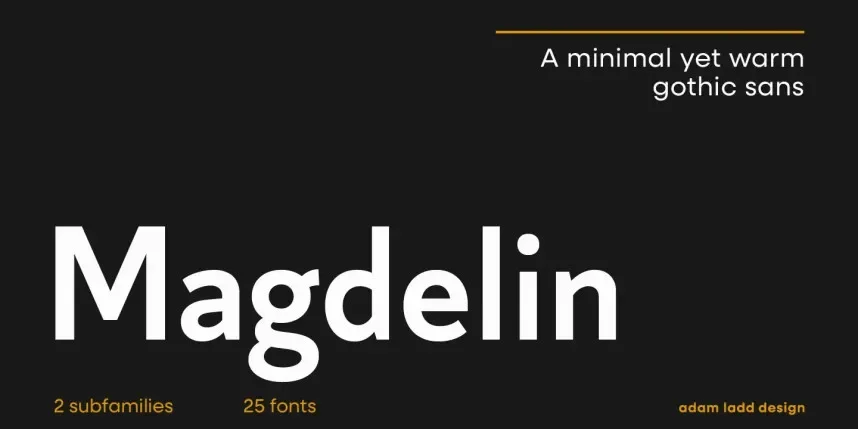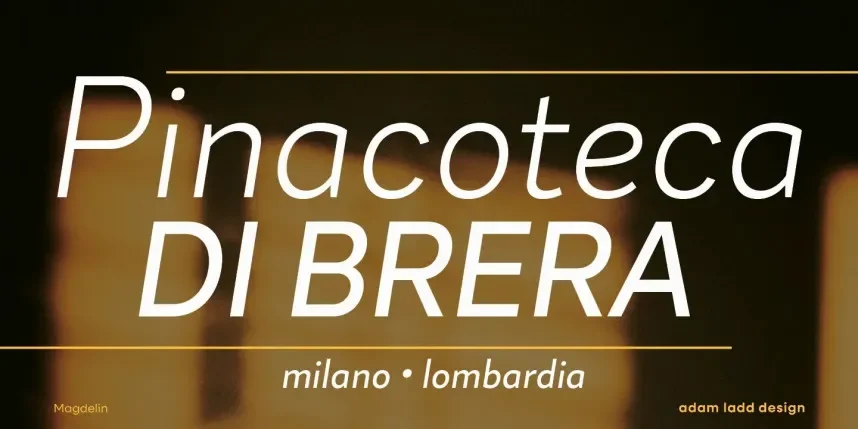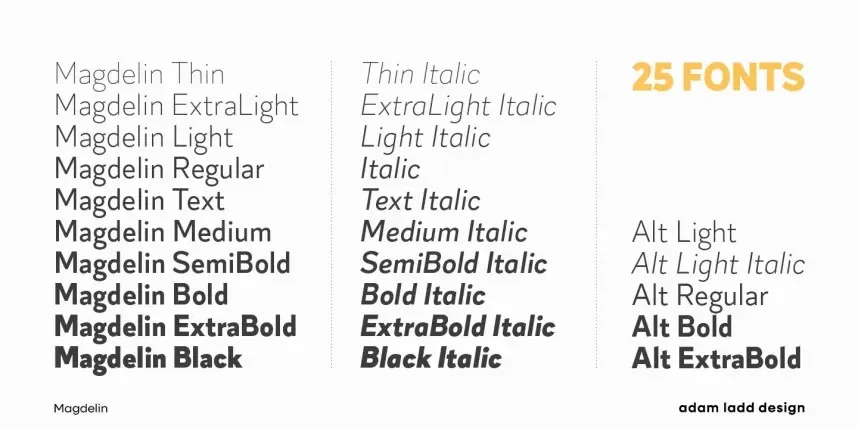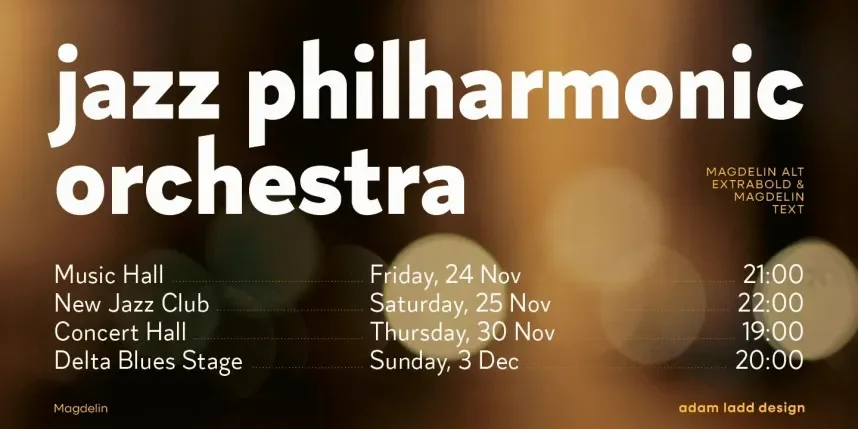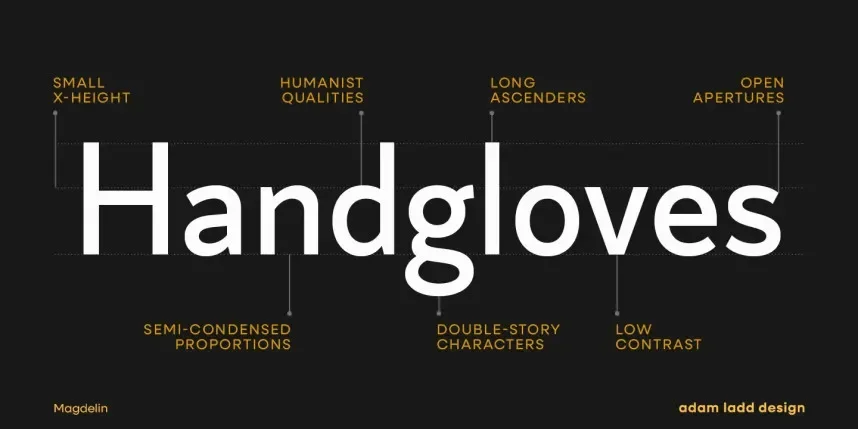
Magdelin Font Family solves readability issues in classic serif projects, offering clear letterforms without excessive ornamentation that can distract from content.
Magdelin is a serif typeface family with moderate stroke contrast, refined curves, and traditional proportions. Its structure supports legible headings and body text in both print and digital formats.